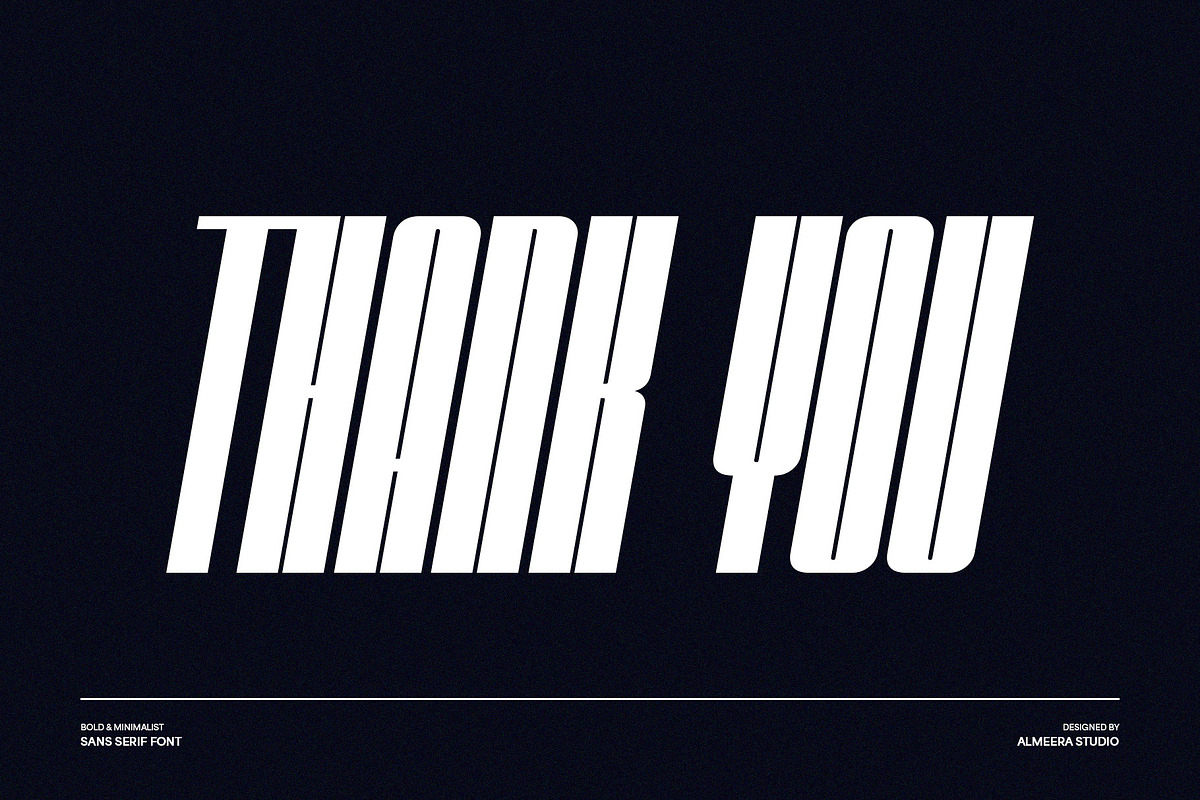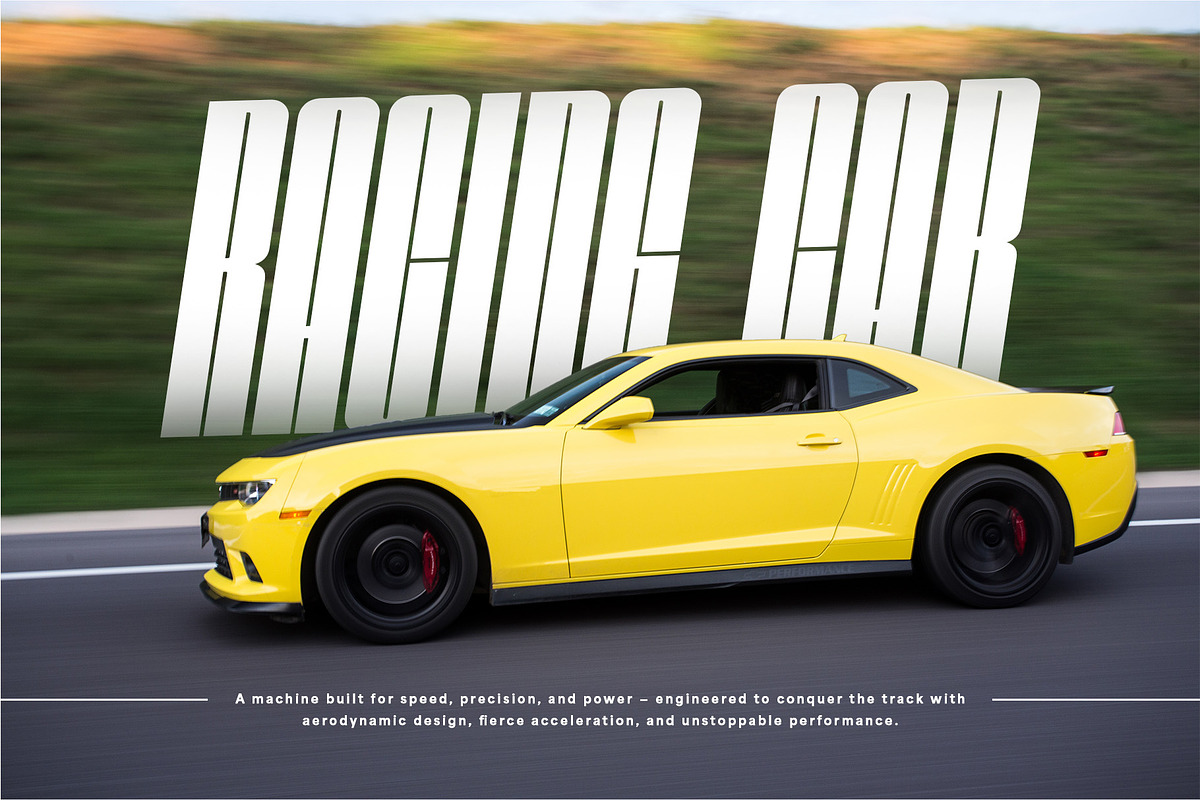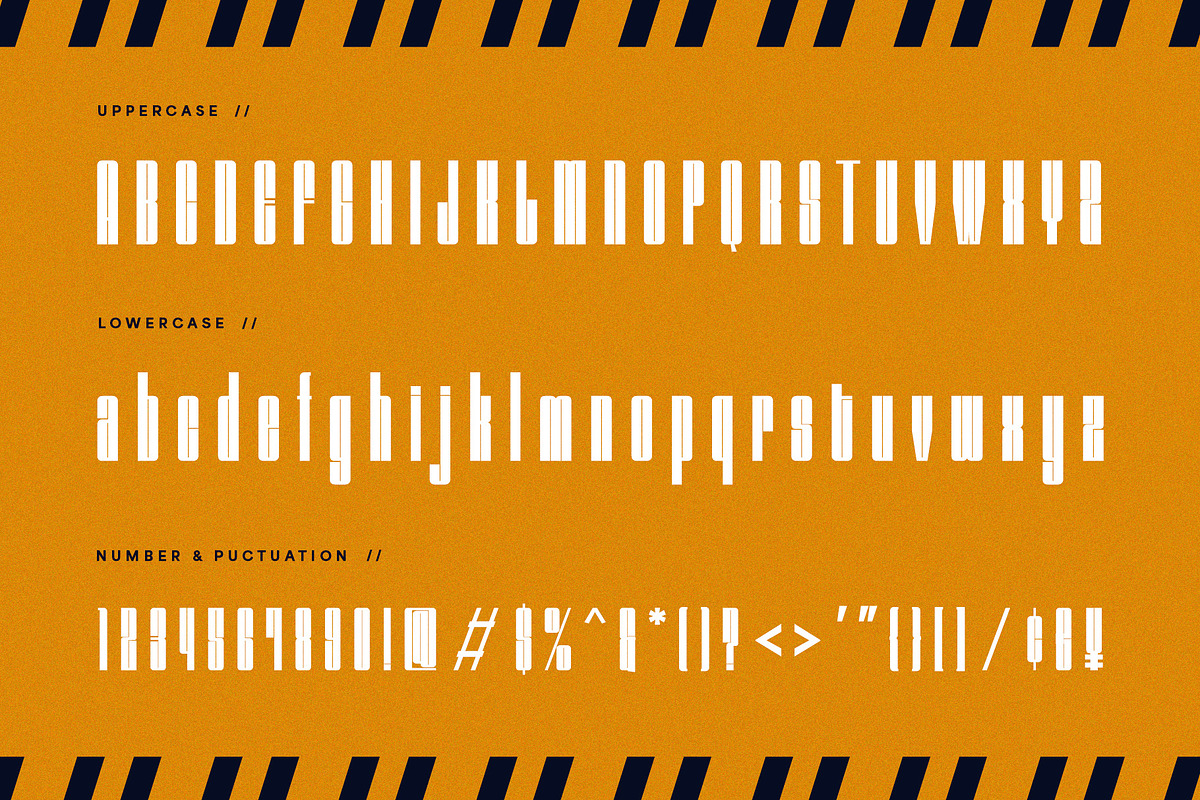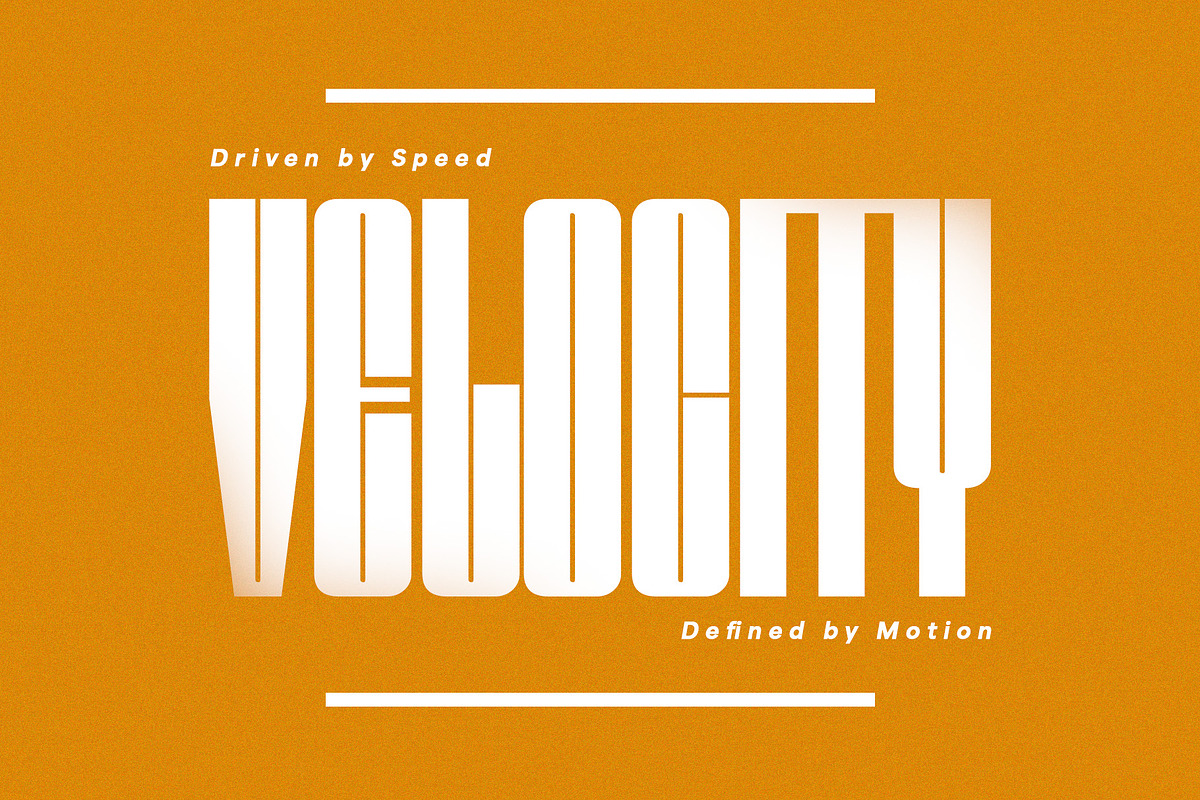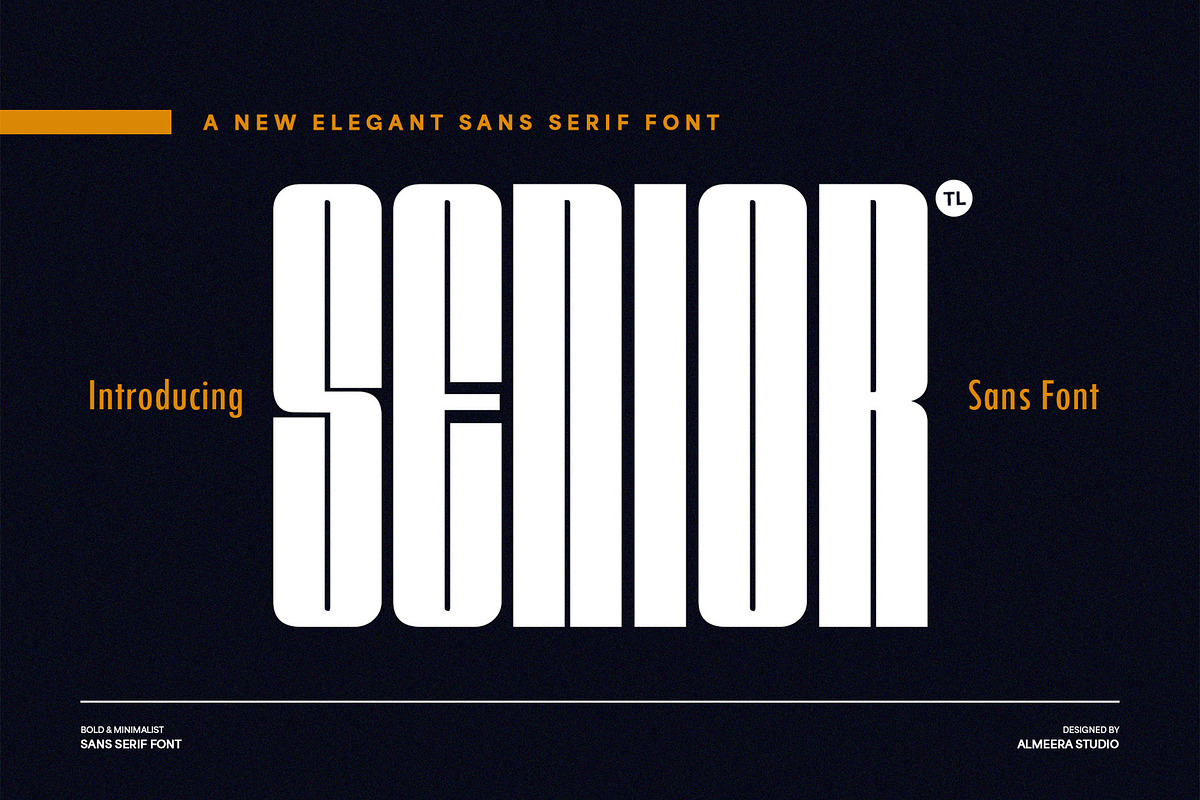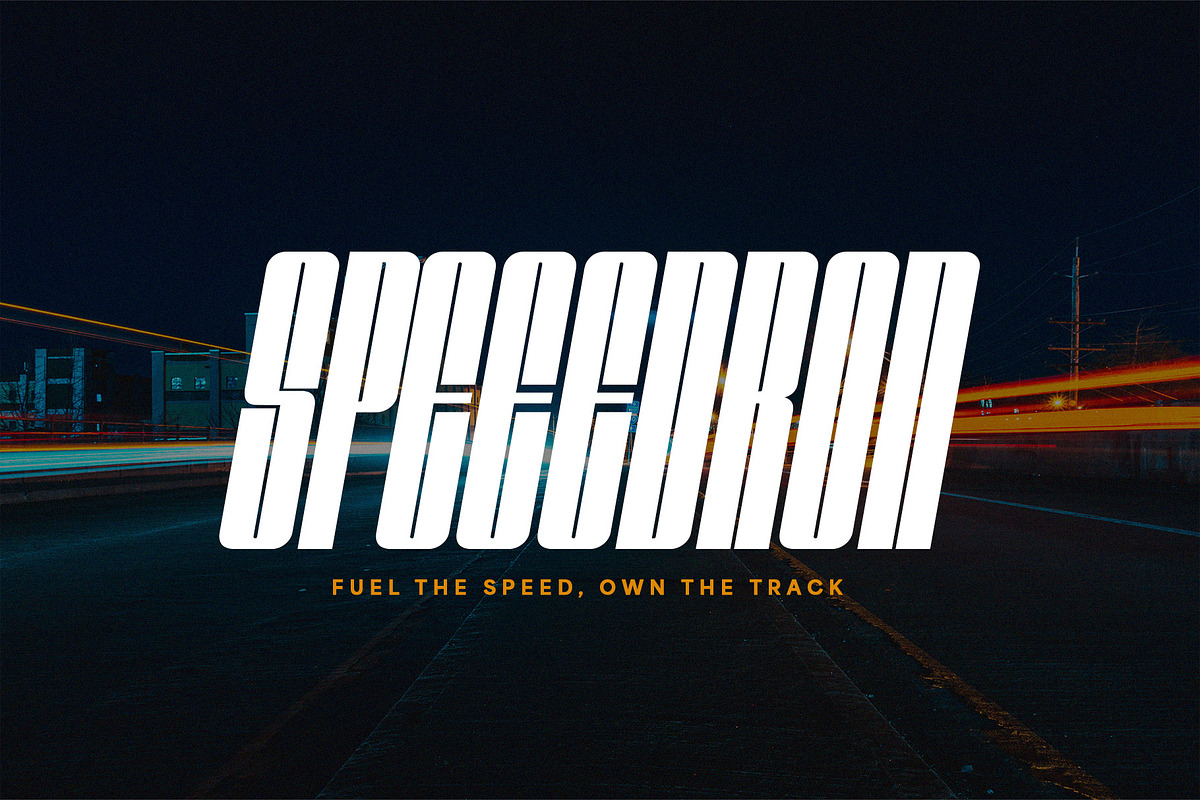
Senior - Elegant & Condensed Sans
Discover Senior, a new elegant sans serif font that offers a refined blend of sophistication and modern efficiency. With its distinctive condensed proportions, Senior is perfect for high-impact titles, sleek branding, editorial layouts, and design where space optimization meets style. This bold and minimalist typeface ensures excellent readability even in its tall stature, making it a versatile choice for both digital and print media. Senior brings a unique character to your typography, exuding a professional and contemporary vibe. Elevate your designs with Senior, the ideal font for designers aiming for a chic, cutting-edge aesthetic with a strong vertical presence.